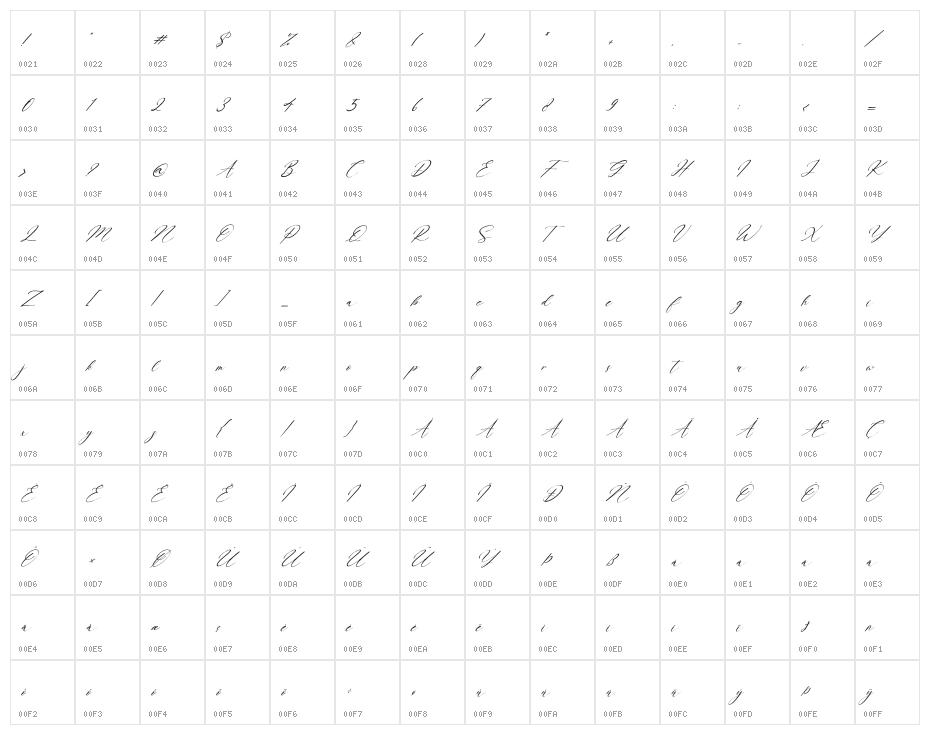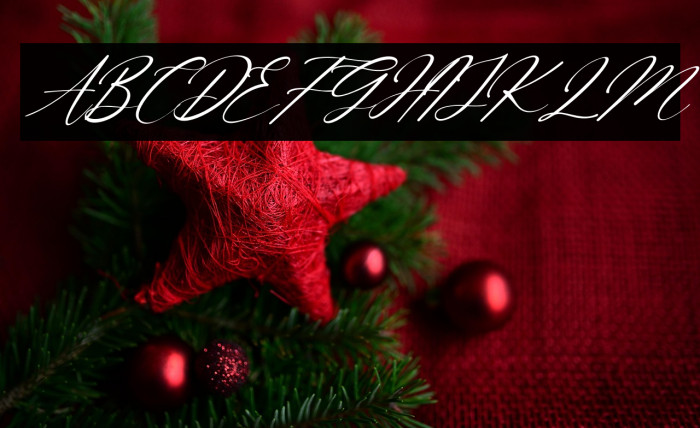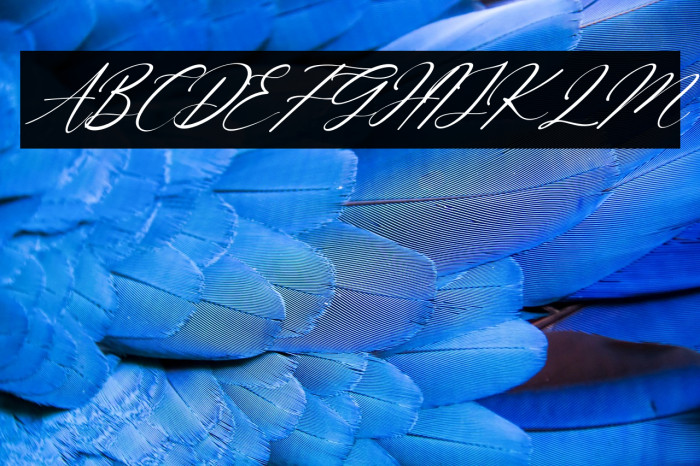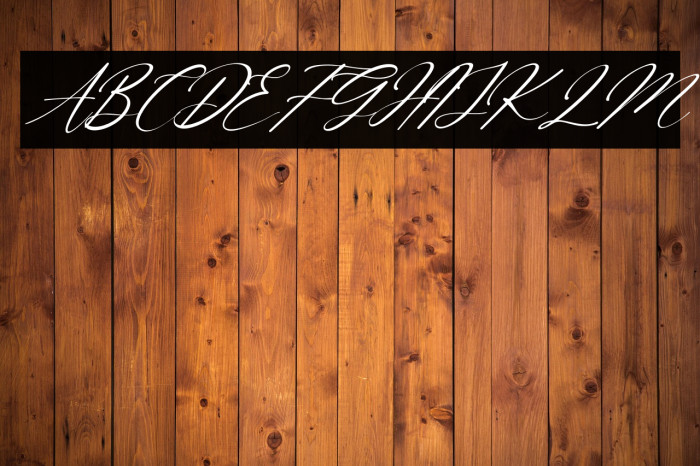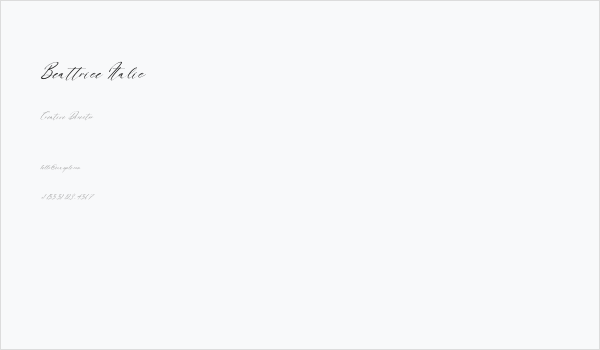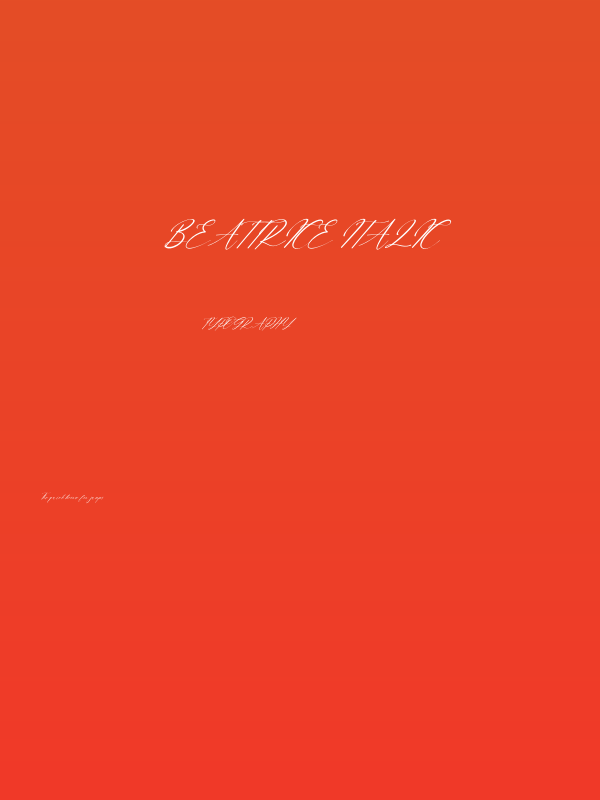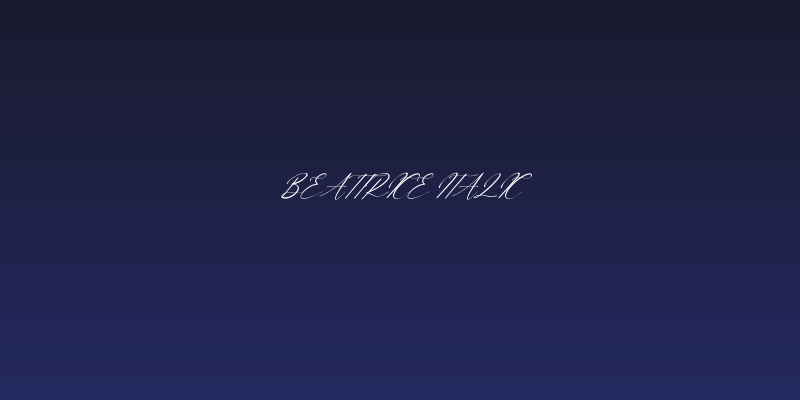
Beattrice Italic Font
Beattrice Italic Description
This elegant script font exudes a sense of sophistication and fluidity, characterized by its graceful, flowing strokes and delicate curves. The letters are intricately designed with a consistent slant, giving it a dynamic and lively appearance. The uppercase letters are ornate and slightly larger, while the lowercase letters maintain a harmonious balance with their slightly smaller size. The numerals and special characters are crafted with the same attention to detail, ensuring a cohesive look across all elements. This font is perfect for projects that require a touch of elegance and refinement.
| Overall Style | Elegant, Sophisticated |
| Proposed Projects | Ideal for wedding invitations, elegant branding, high-end product packaging, and sophisticated event posters. |